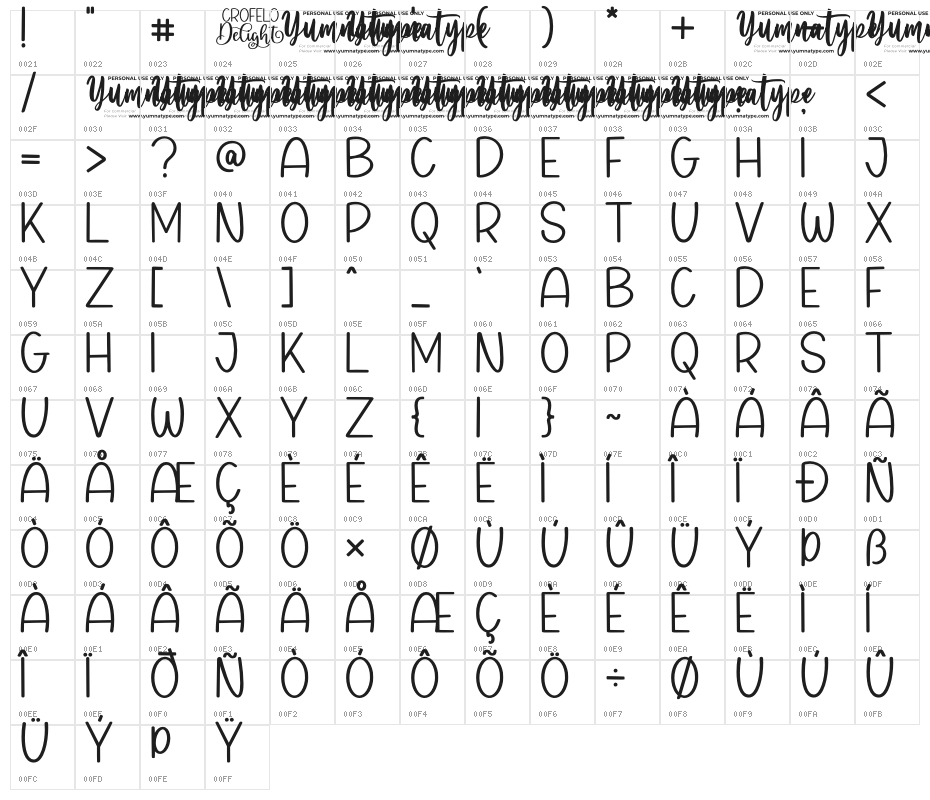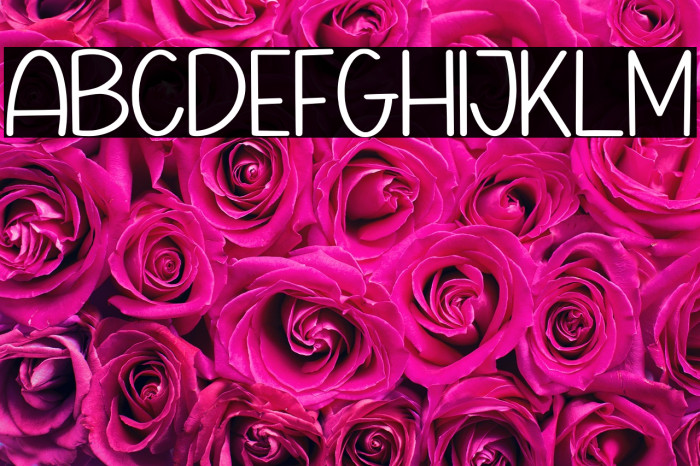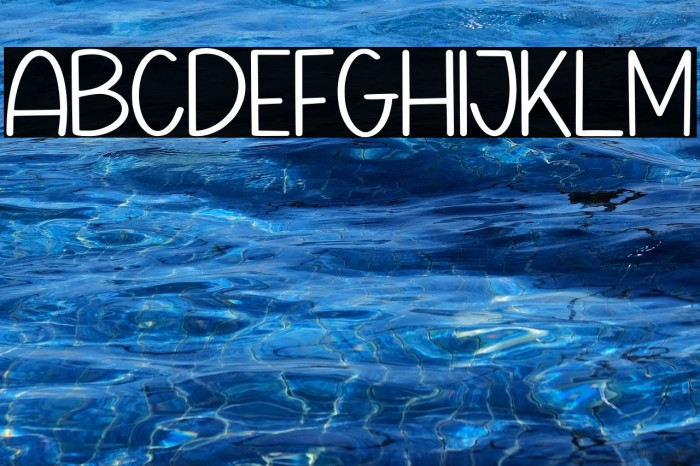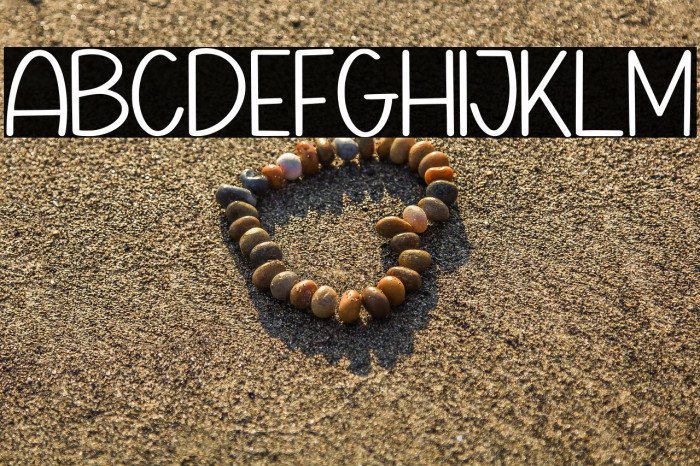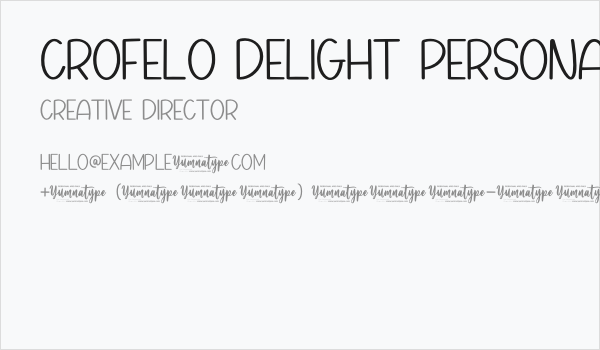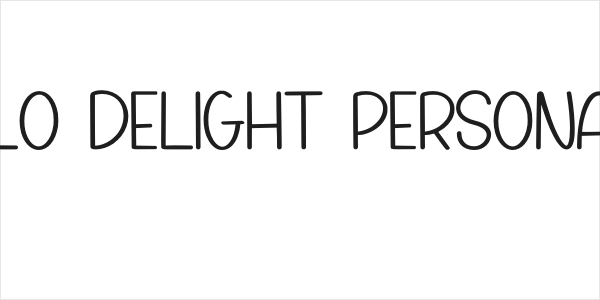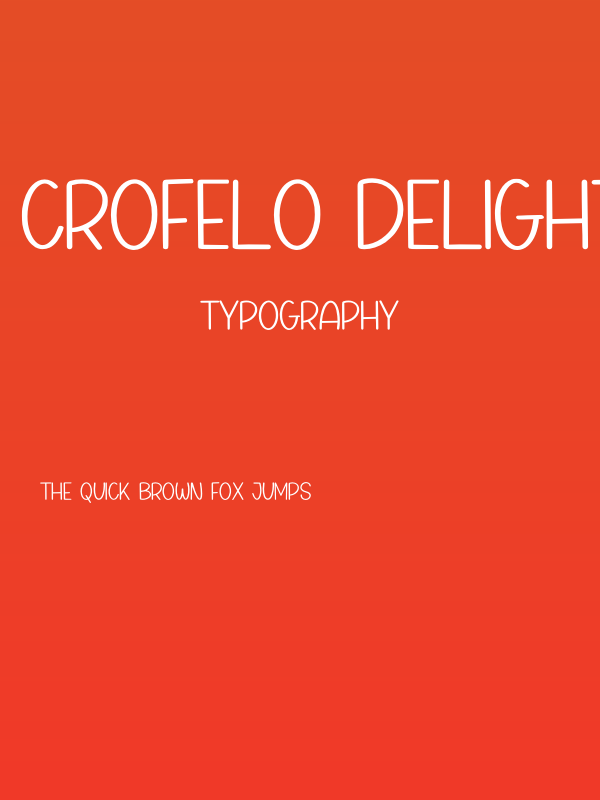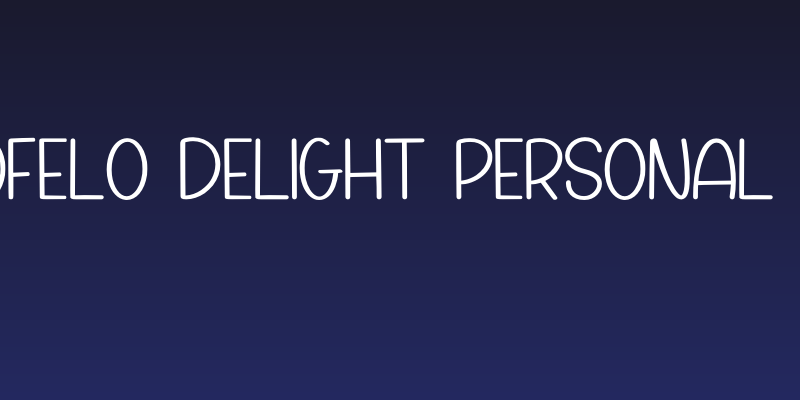
Crofelo Delight Personal Use Font
Crofelo Delight Personal Use Description
This font features a playful and casual handwritten style with smooth, rounded edges and a consistent stroke width. The characters are slightly elongated, giving them a tall and slender appearance. The uppercase and lowercase letters maintain a uniform height, creating a harmonious look. The numerals and special characters are designed to match the overall aesthetic, ensuring a cohesive appearance across all text. This font's informal and friendly vibe makes it suitable for a variety of creative projects.
| Proposed Projects | Ideal for greeting cards, children's books, playful branding, and social media graphics. |